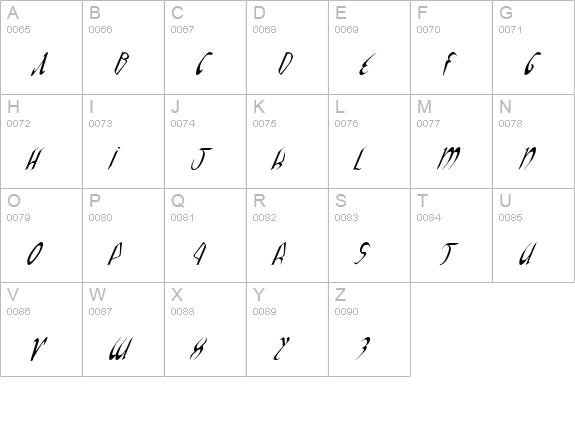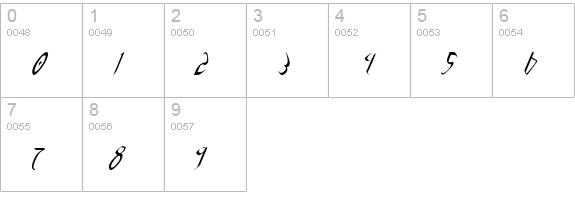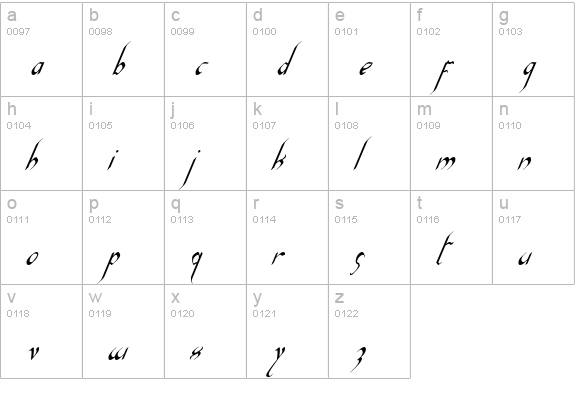
Xaphan II Condensed Italic is a distinctive, condensed-width, italic variant in the Xaphan typeface family \xE2\x80\x94 well suited to design and typography projects.
Introducing Xaphan II Condensed Italic font - a sleek and modern typeface designed to make a statement in your design projects. With its elegant slanted style, Xaphan II Condensed Italic exudes sophistication and creativity. Perfect for adding a touch of flair to any design, this font is versatile and eye-catching. And the best part? Xaphan II Condensed Italic is available for free download at FontsMarket.com. Whether you're working on a branding project, website design, or any other creative endeavor, this font is sure to elevate your work to the next level. Don't miss out on the opportunity to enhance your designs with the stylish and contemporary Xaphan II Condensed Italic font - download it for free today!